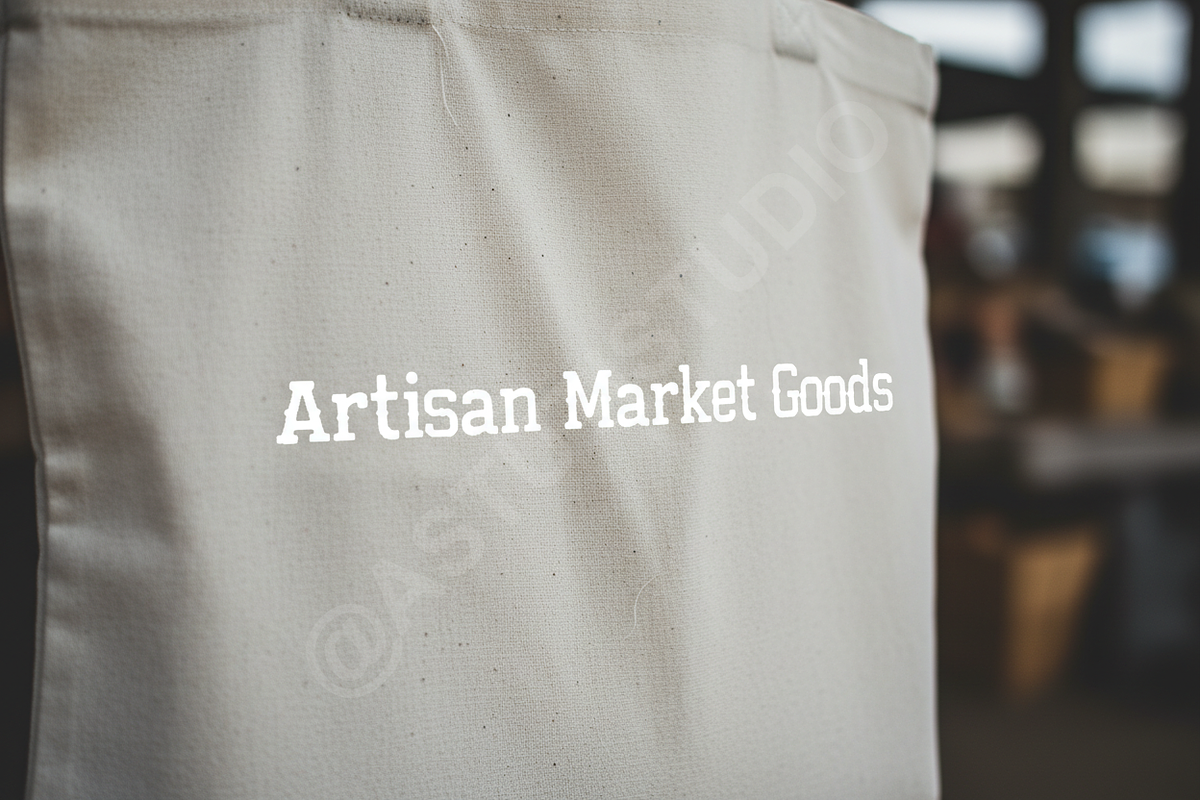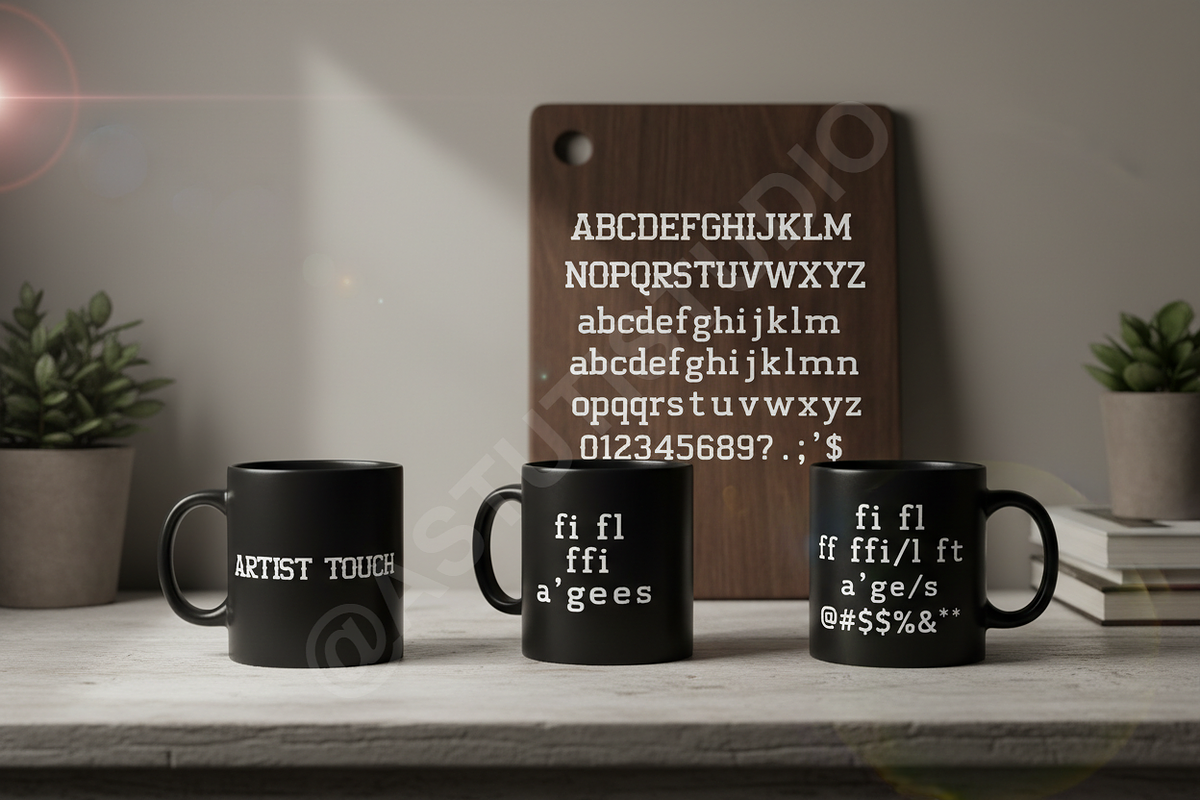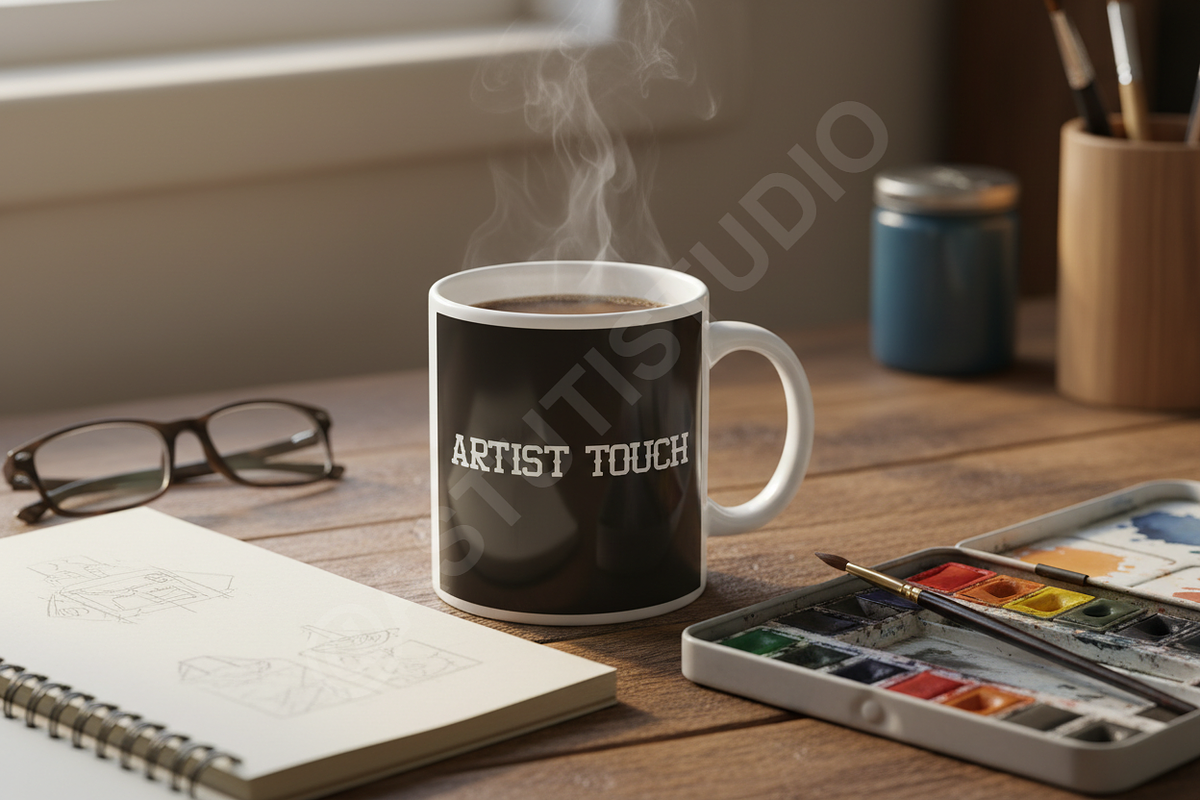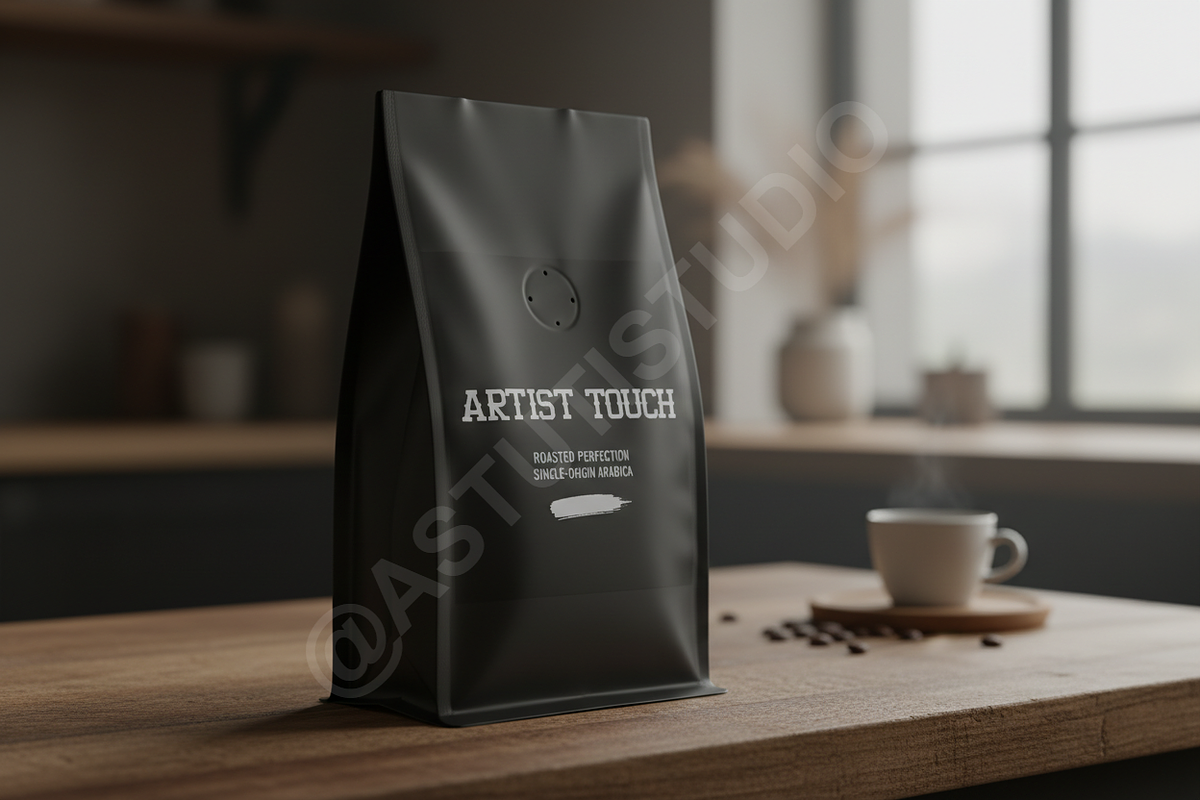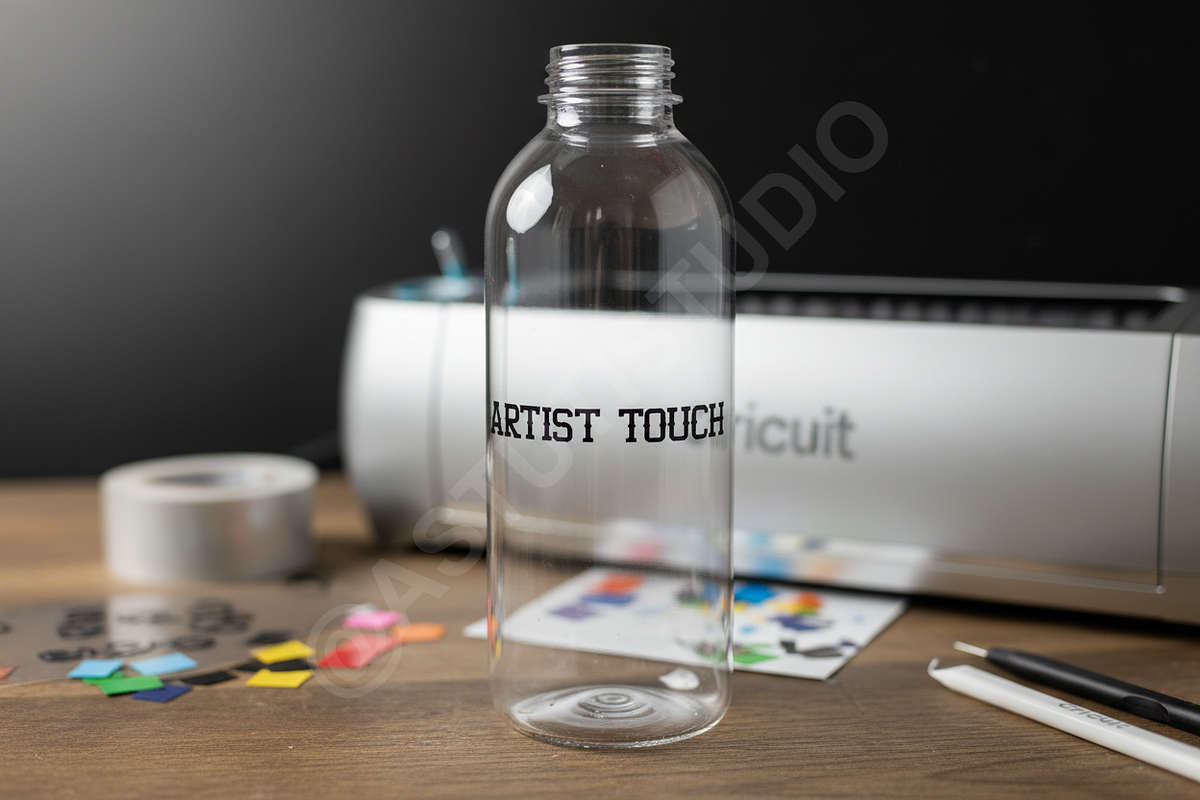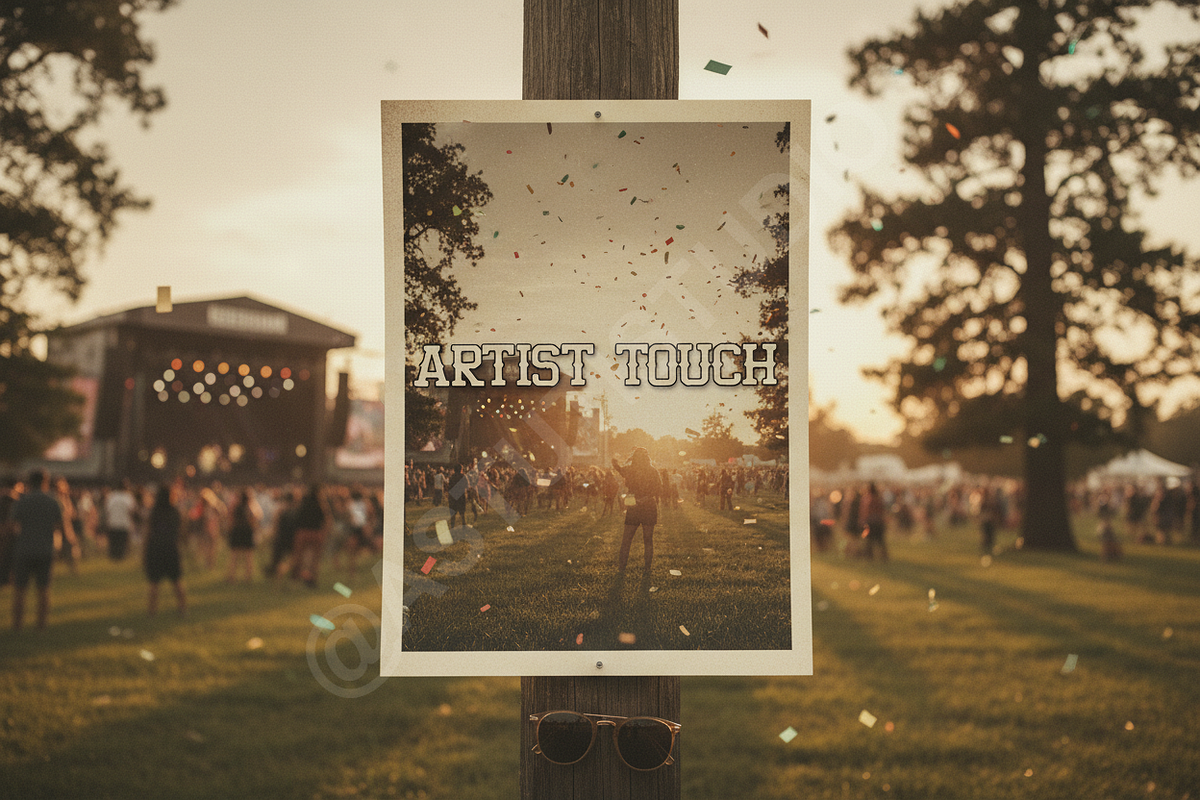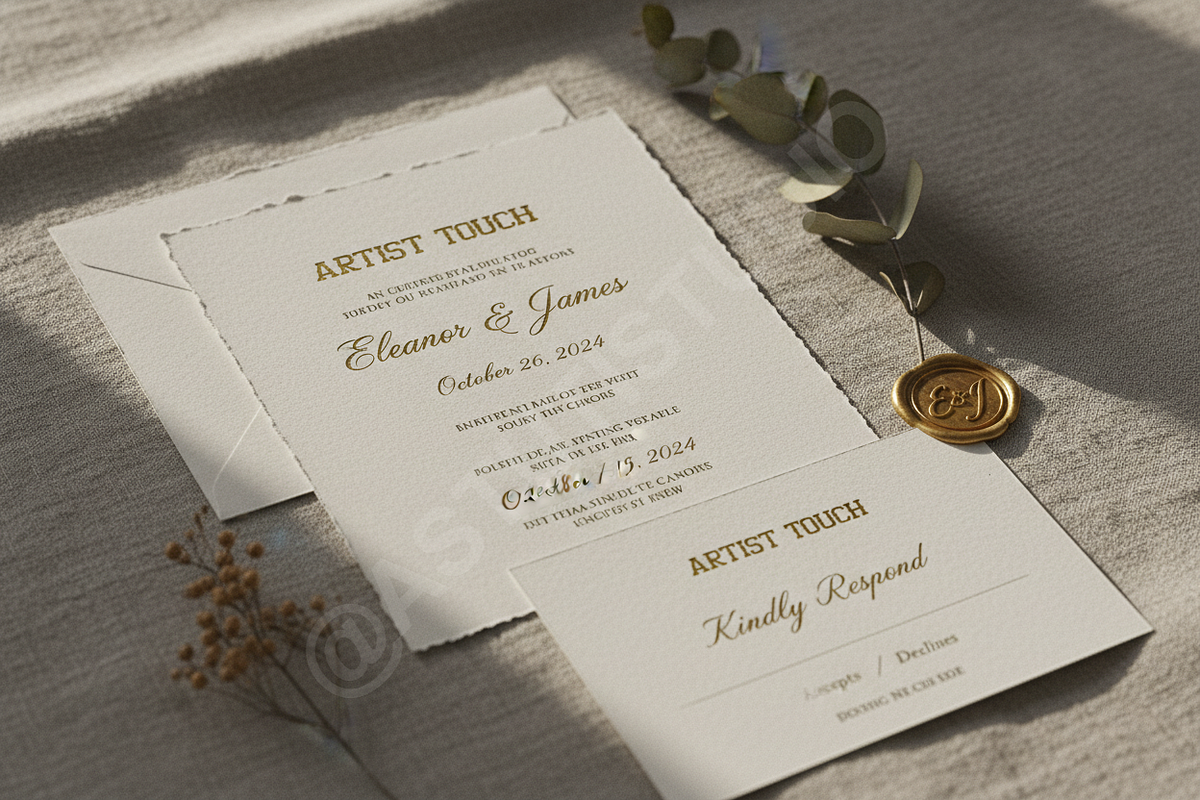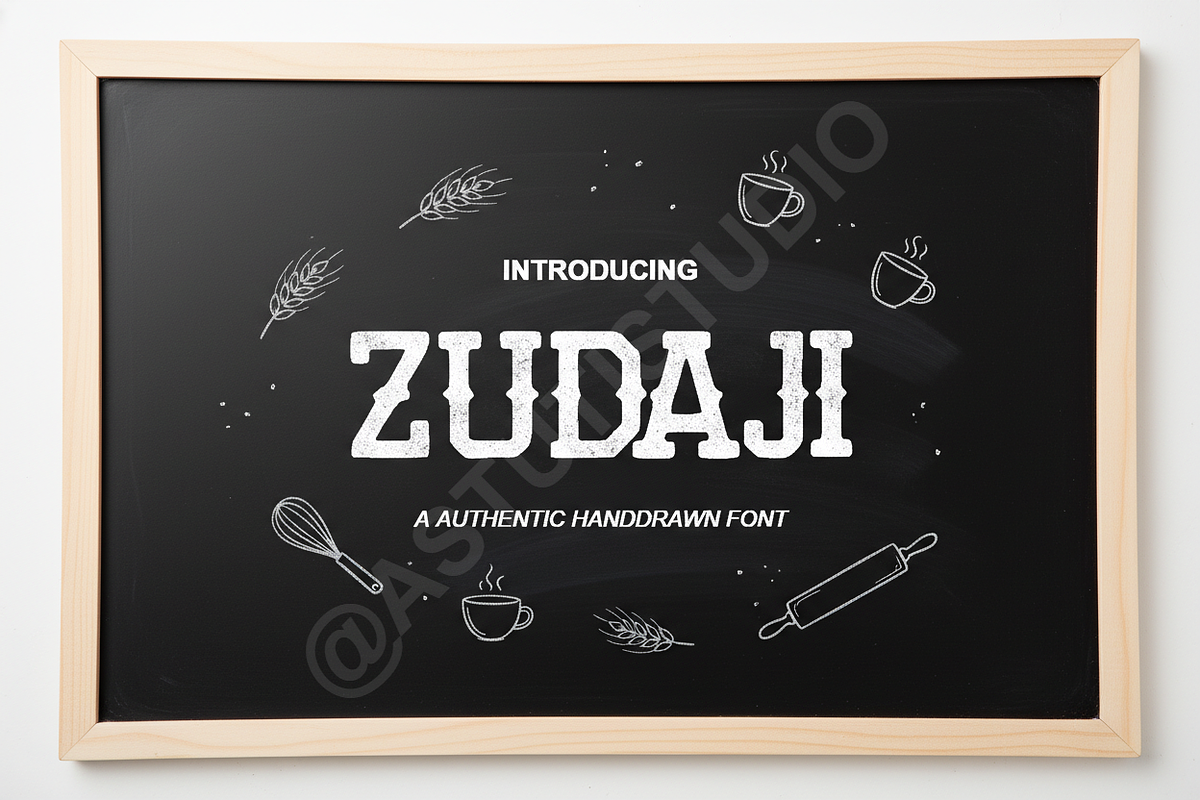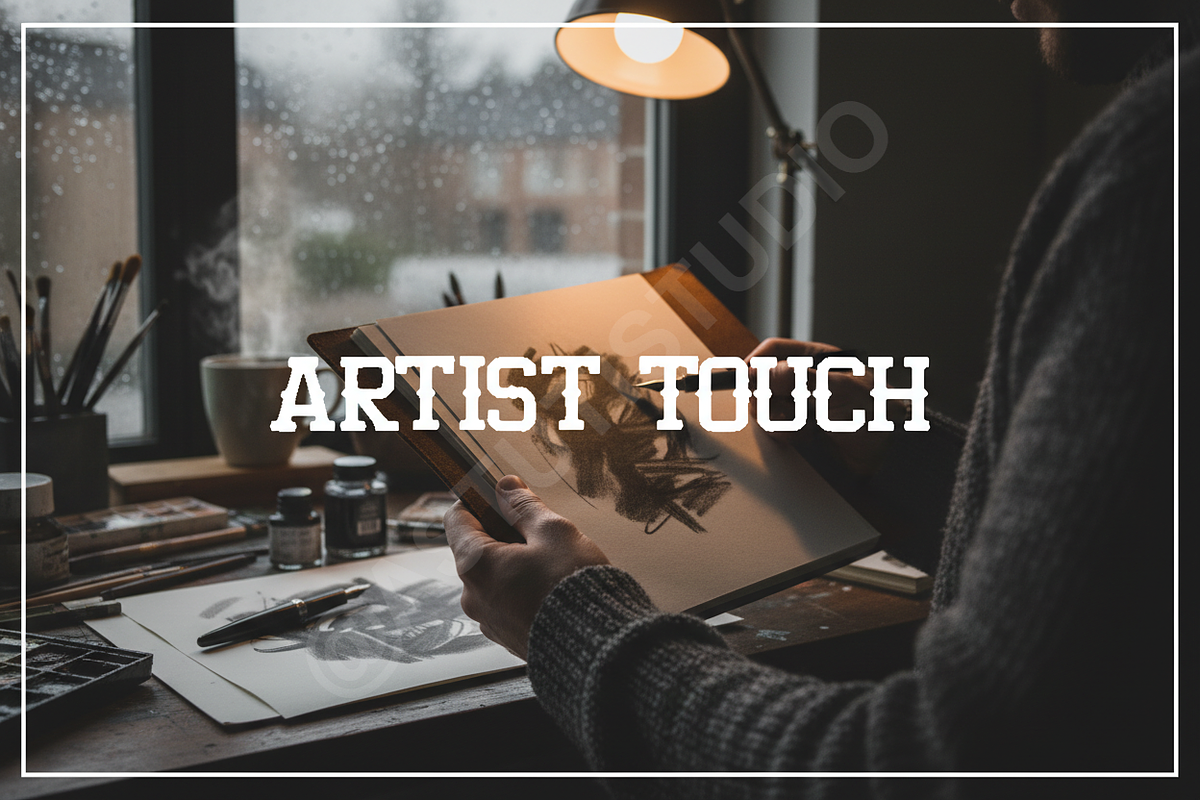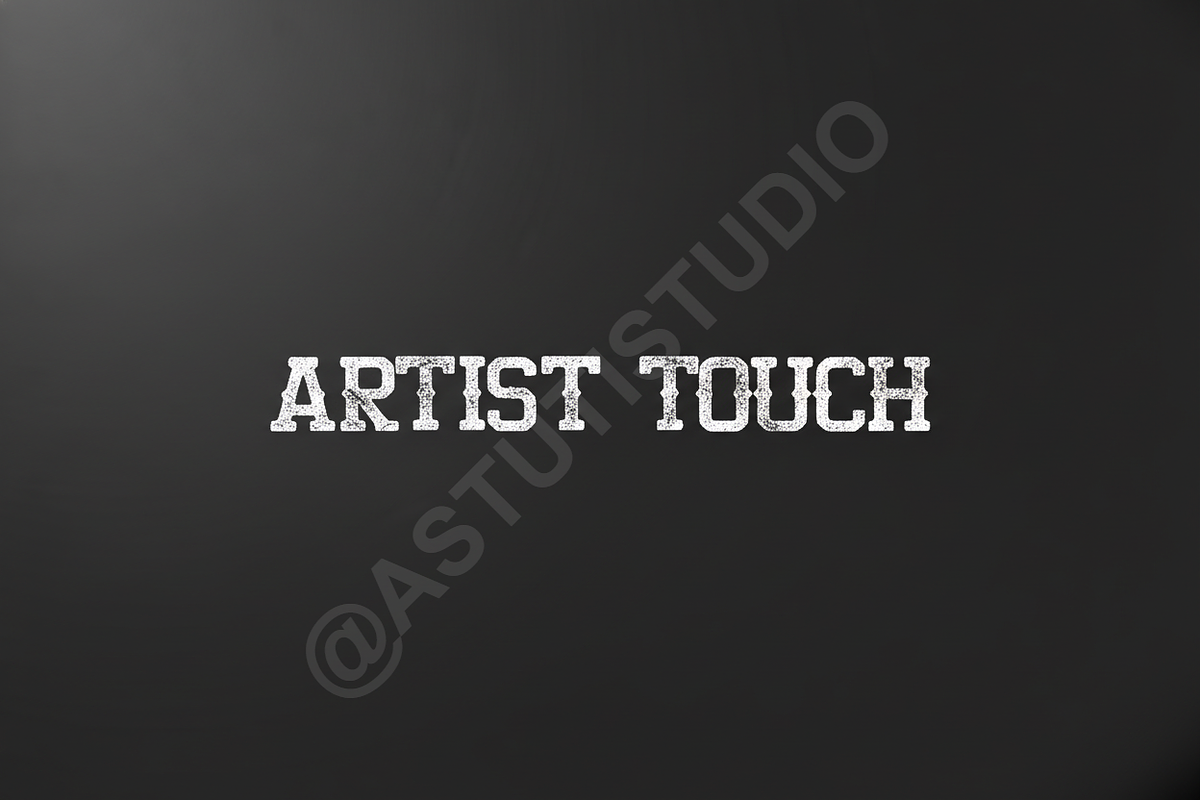
Zudaji | Elegant High-Contrast Displ
Zudaji is a refined, high-contrast serif typeface designed for ultimate sophistication. Its delicate stems and sharp terminals create an unparalleled sense of luxury, making it the definitive choice for projects demanding elegance and clarity. Perfect for high-fashion branding, prestigious publications, and impactful social media campaigns where every word must resonate with authority.
- High-Contrast Display: Maximizes impact in titles and headlines.
- Extensive Language Support: Includes Western and Central European characters.
- Professional Kerning & Spacing: Ensures exceptional readability at any size.
- Stylistic Alternates & Ligatures: Offers beautiful customization for truly unique logos and type treatments.